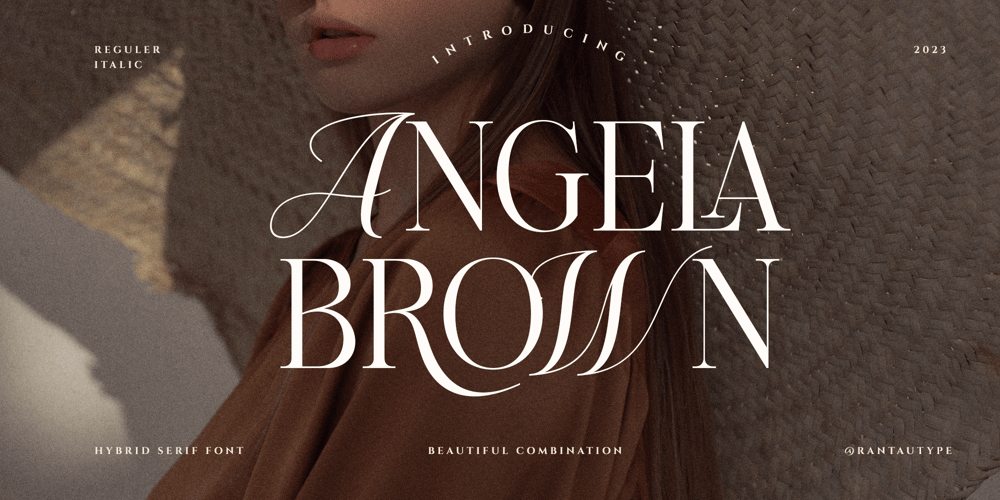
Angela Brown Font Family was designed by Yudi Pratama Chandra and published by RantauType. Angela Brown contains 2 styles and family package options. Angela Brown is a beuatiful and inspiring mix of classic calligraphy and modern serif. I’ve also love combination the calligraphy and serif make classic and nostalgic. Angela Brown brings a touch of charm and sophistication to branding, editorial designs, and more.Angela Brown – made mainly for headlines, titles, and is well-suited for advertising, vintage mood board, branding, logotypes, packaging, titles, editorial design, modern logos, websites, social media quotes, wedding branding, modern and vintage design. Now you can choice Angela Brown to make a beuatiful design.Features Standar character A-Z and a-z Numberial and Functional Ligature Works on PC & Mac Simple installations Accessible in Adobe Illustrator, Adobe Photoshop, Adobe InDesign, even work on Microsoft Word. Fonts include Multilingual Support for: Afrikaans, Albanian, Asu, Basque, Bemba, Bena, Breton, Chiga, Cornish, Dutch, English, Estonian, Filipino, Finnish, Friulian, Galician, Gusii, Indonesian, Irish, Italian, Kabuverdianu, Kalenjin, Kinyarwanda, Luo, Luxembourgish, Luyia, Machame, Makhuwa-Meetto, Makonde, Malagasy, Manx, Morisyen, North, Ndebele, Nyankole, Oromo, Portuguese, Quechua, Romansh, Rombo, Rundi, Rwa, Samburu, Sango, Sangu, Scottish, Gaelic, Sena, Shambala, Shona, Soga, Somali, Spanish, Swahili, Swedish, Swiss, German.Thank you for your purchase!Hope you enjoy with our font!